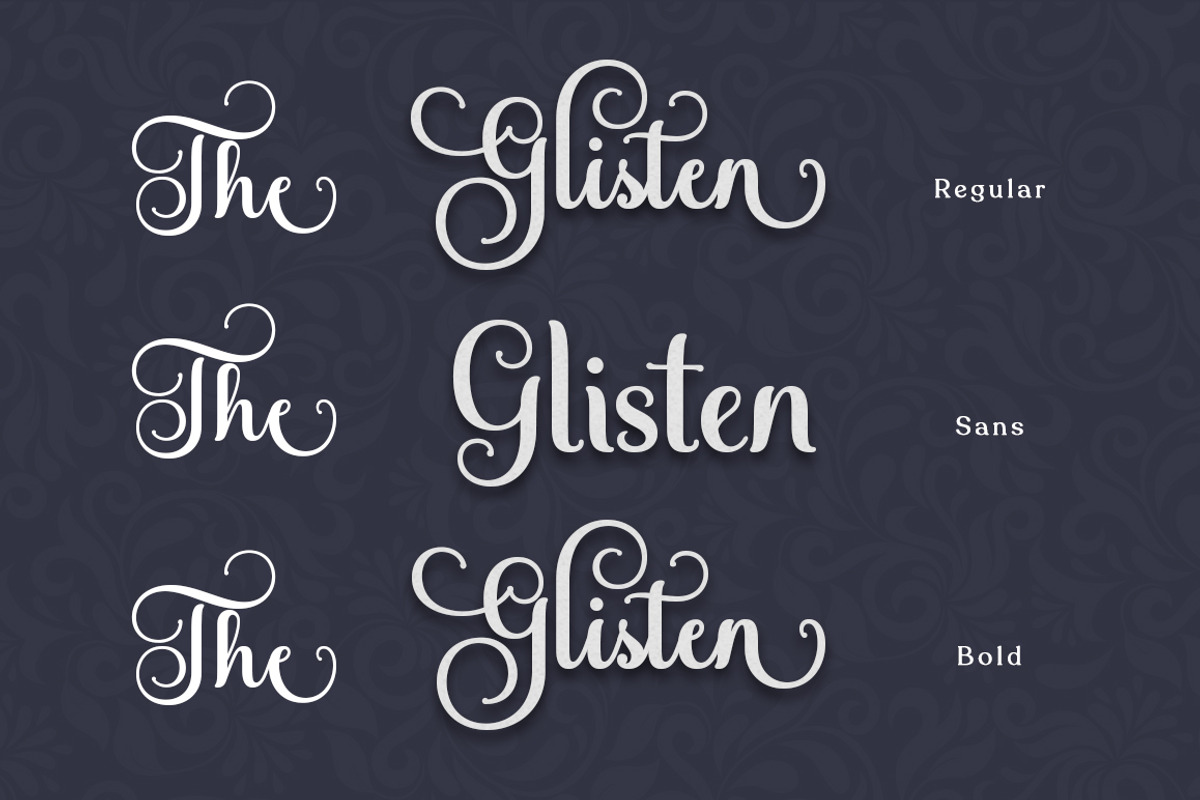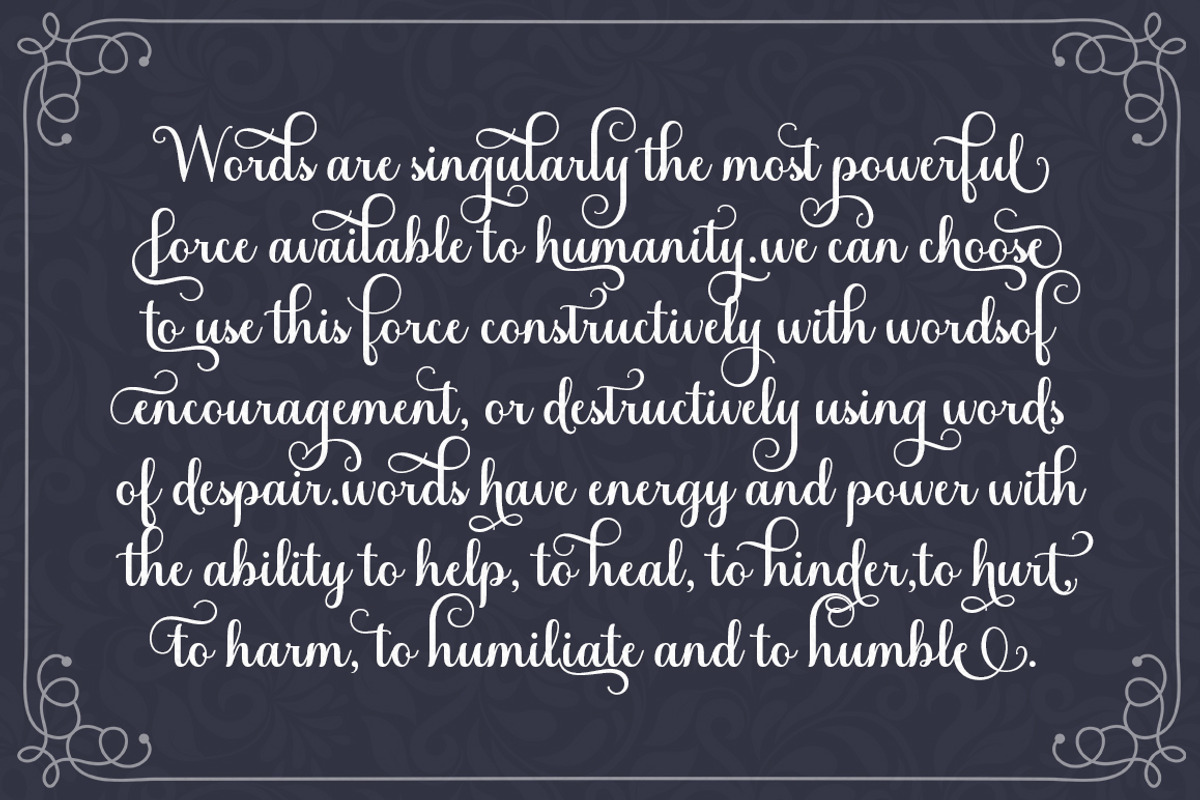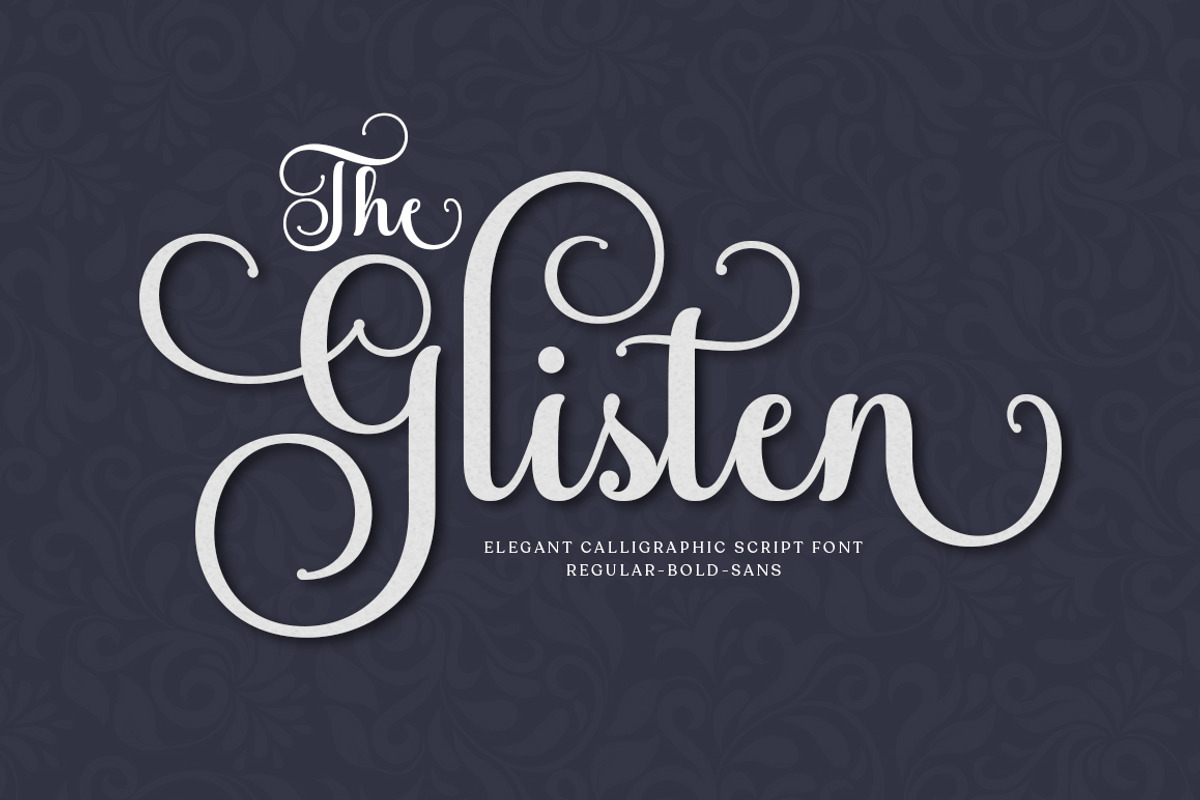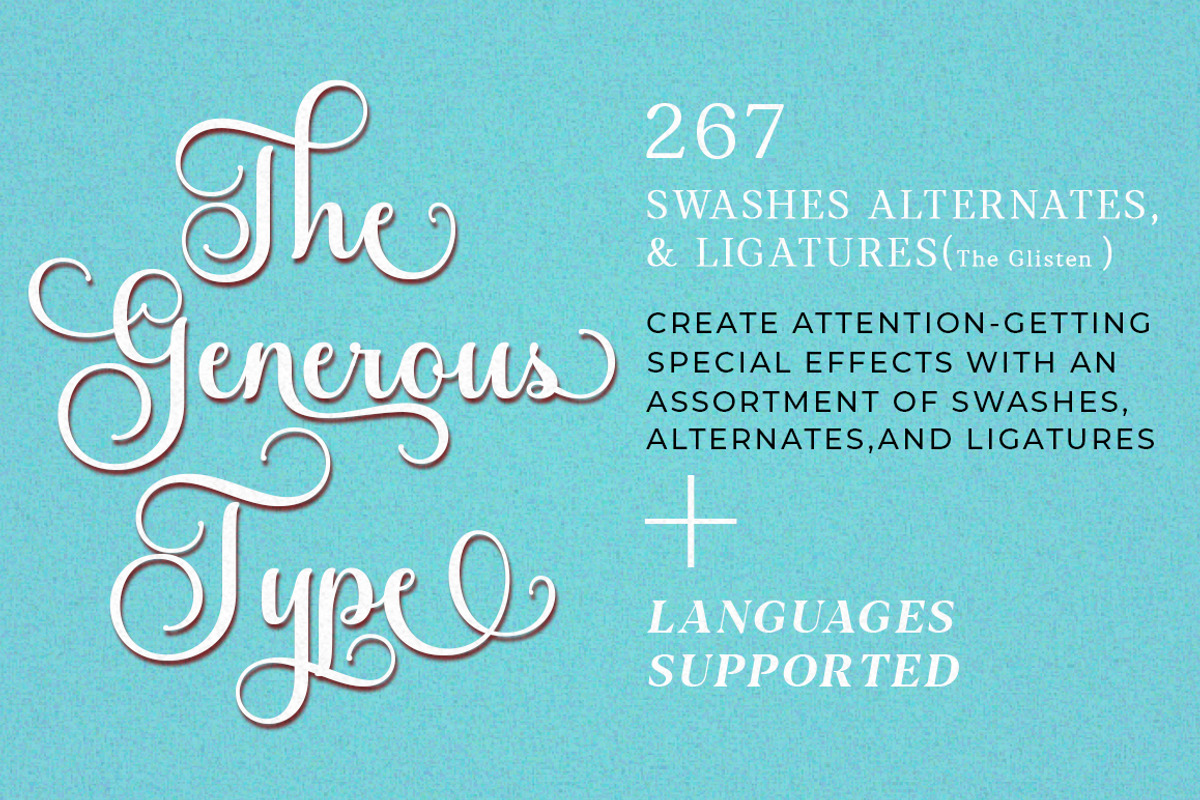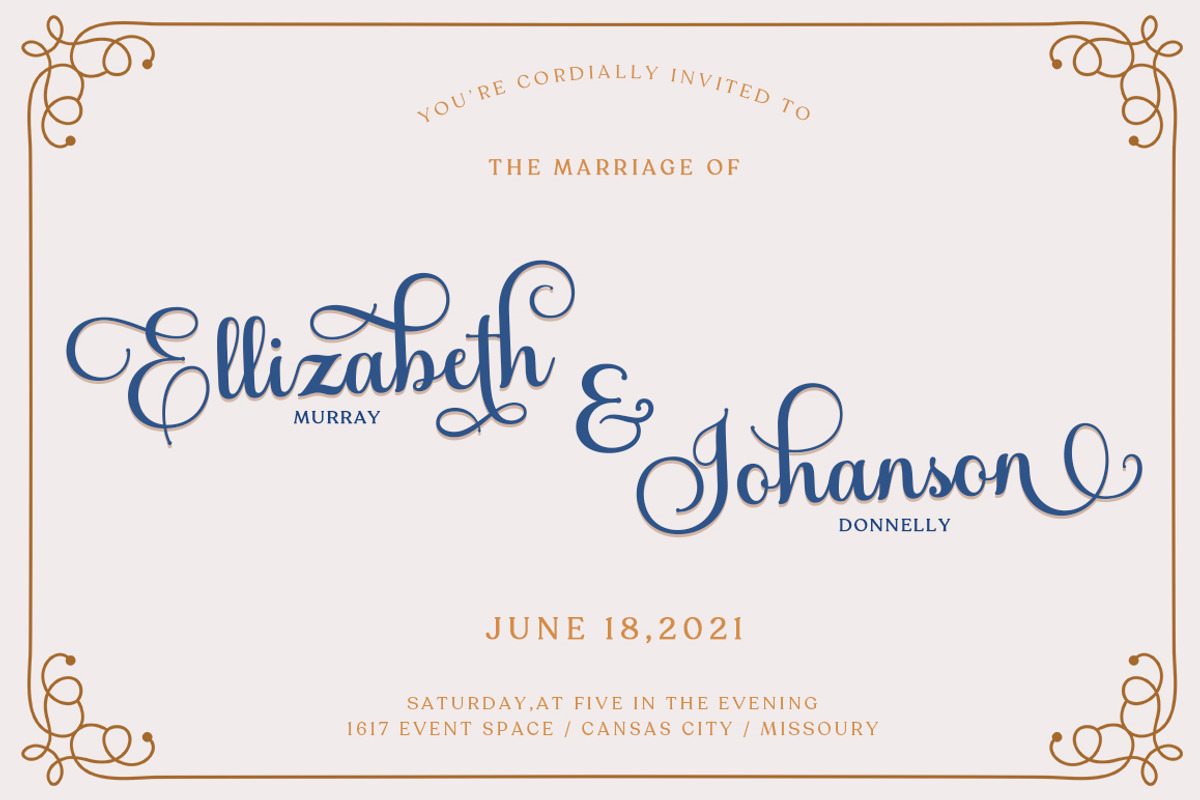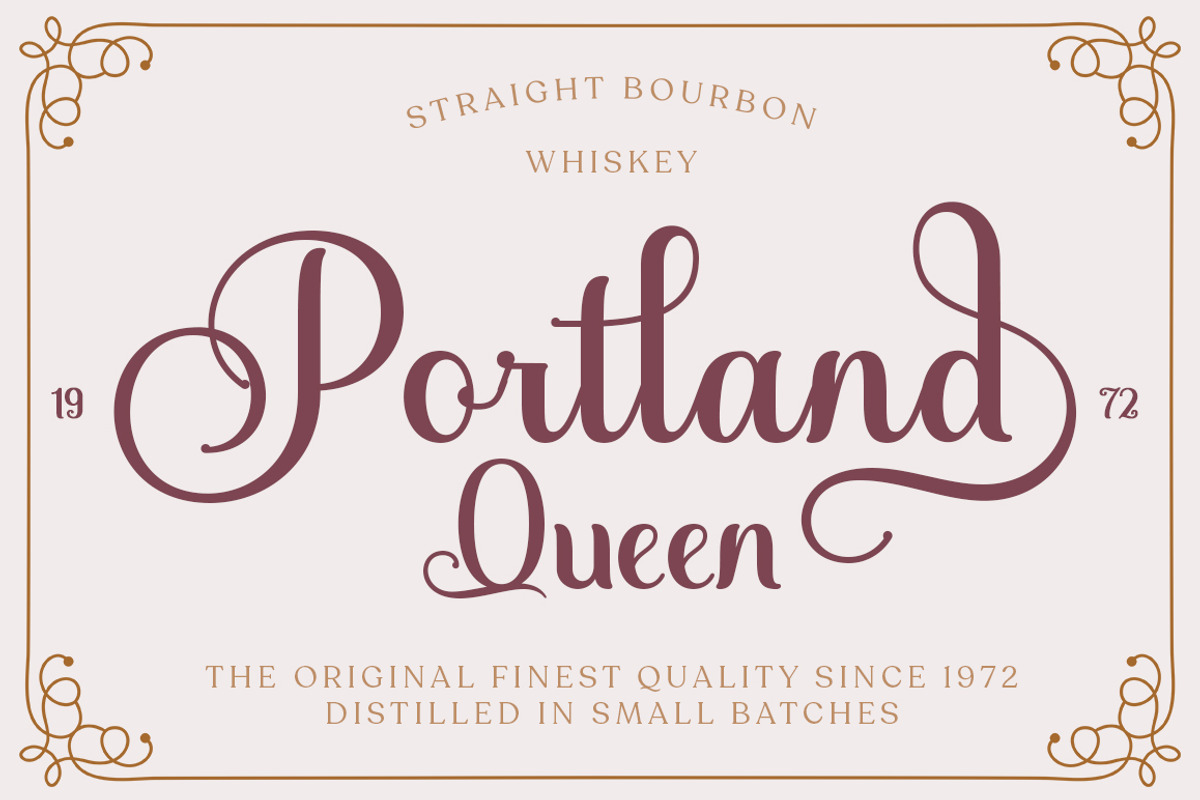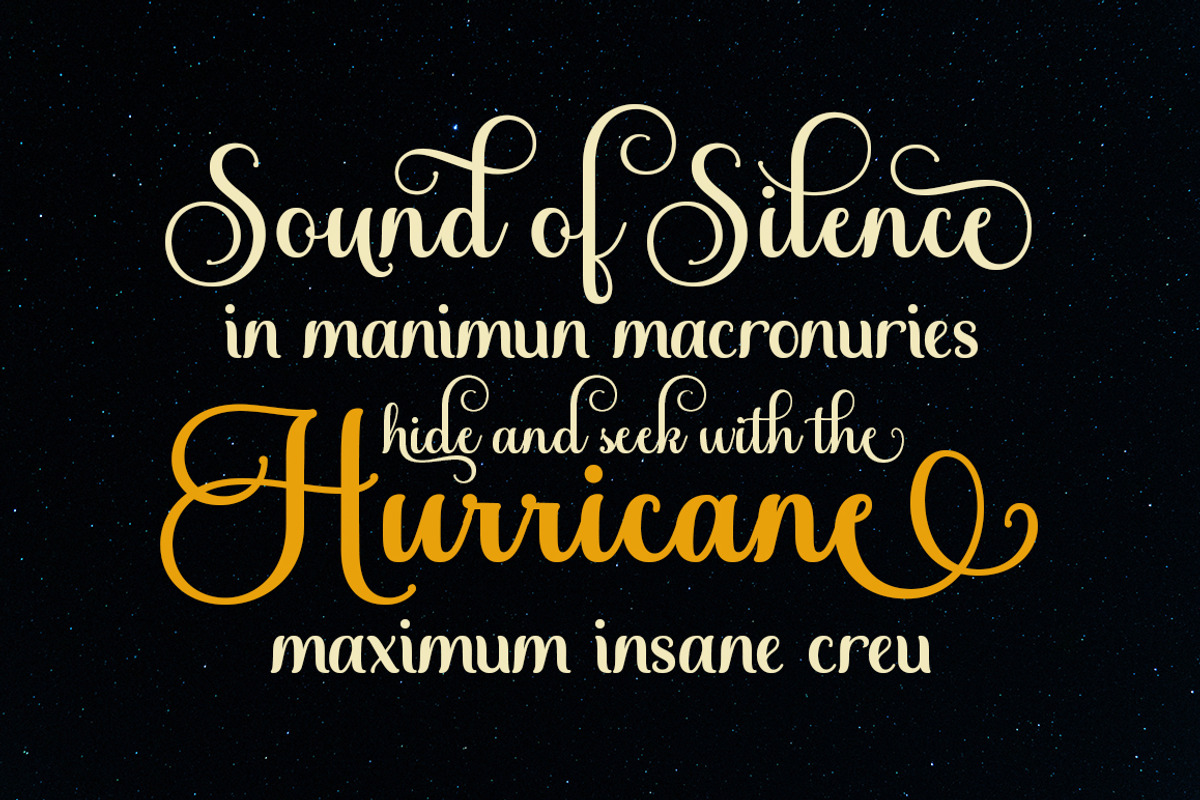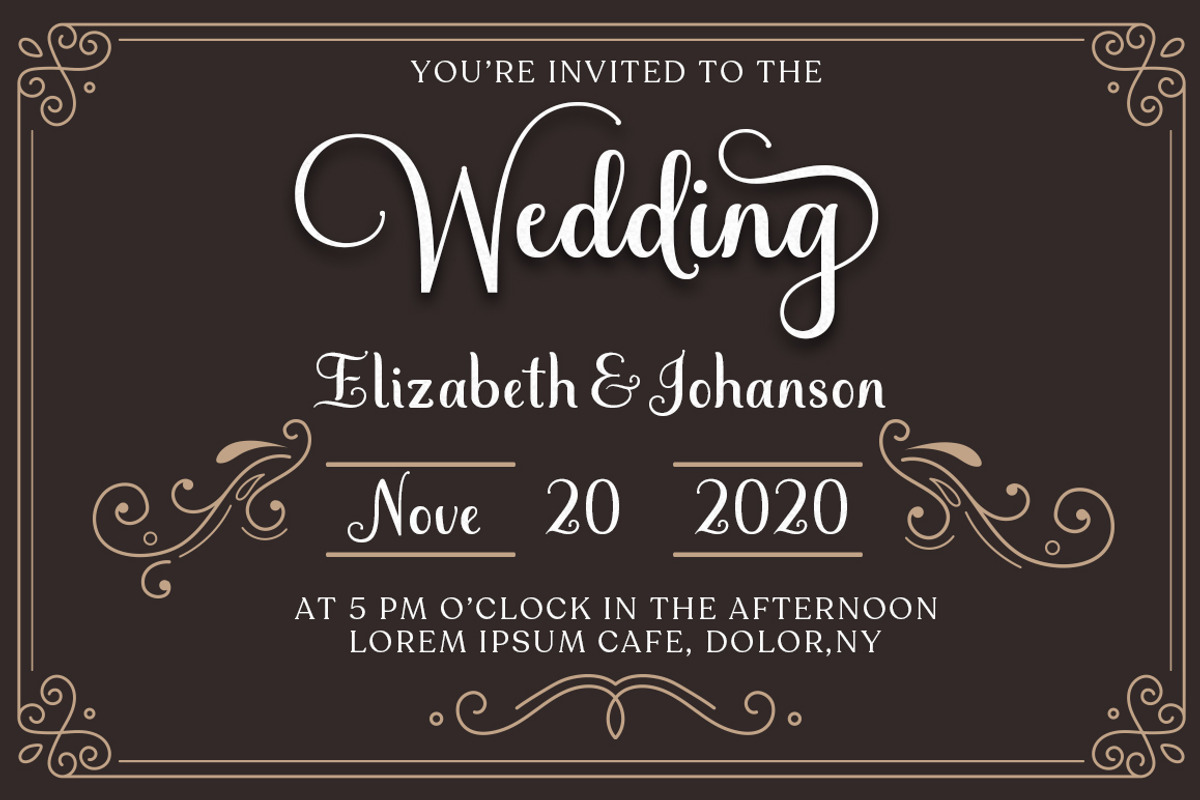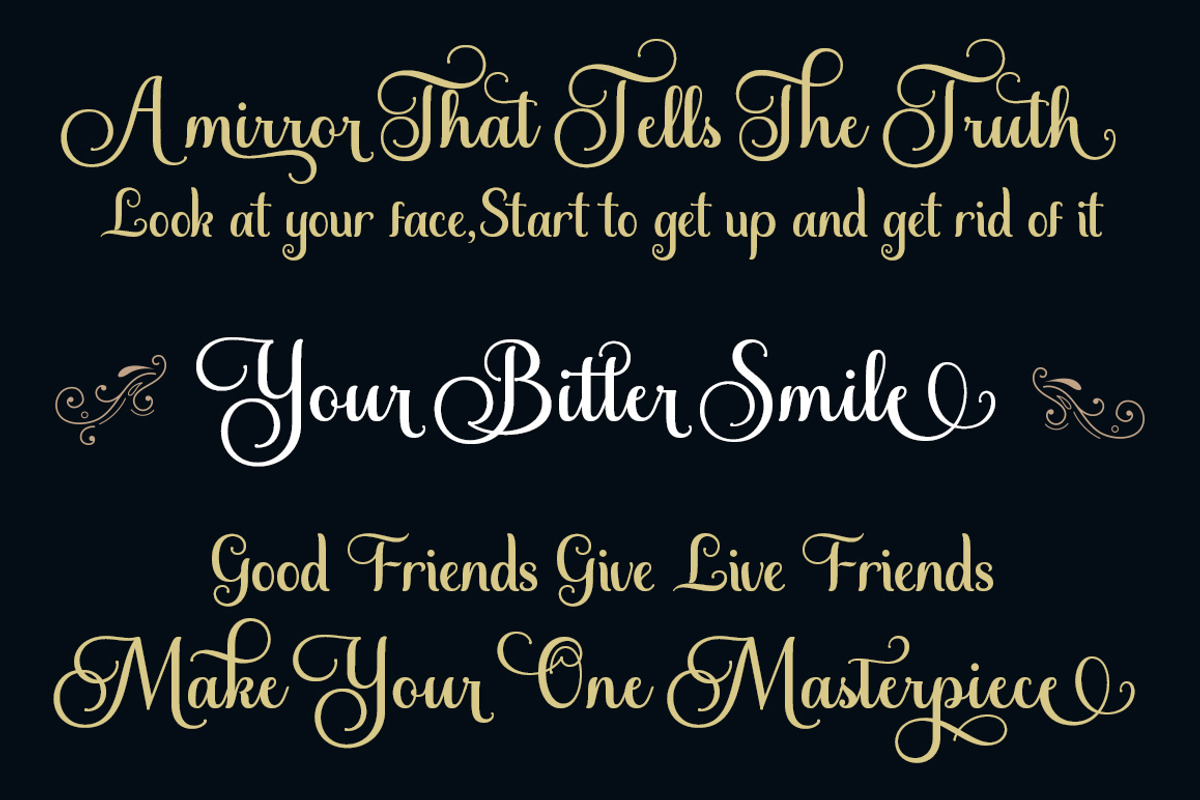
The Glisten Script
The Glisten Script is a calligraphic script font that comes with exquisite character changes, a kind of classic decorative copper script with a modern twist, designed with high detail for an elegant style.
Glisten Script is interesting because it is smooth, clean, feminine, sensual, glamorous, simple and very easy to read, because there are many fancy letter joints. I also offer a number of decent stylistic alternatives for multiple letters. Classic styles are very suitable to be applied in various formal forms such as invitations, labels, restaurant menus, logos, fashion, make up, stationery, novels, magazines, books, greeting / wedding cards, packaging, labels or all kinds of advertising purposes. .
Glisten Script has 500+ Glyph alternative characters, including multiple language support. With OpenType features with alternative styles and elegant binding. The OpenType feature works automatically, but you can access it manually and for the best results required for your creativity in combining these Glyph variations.